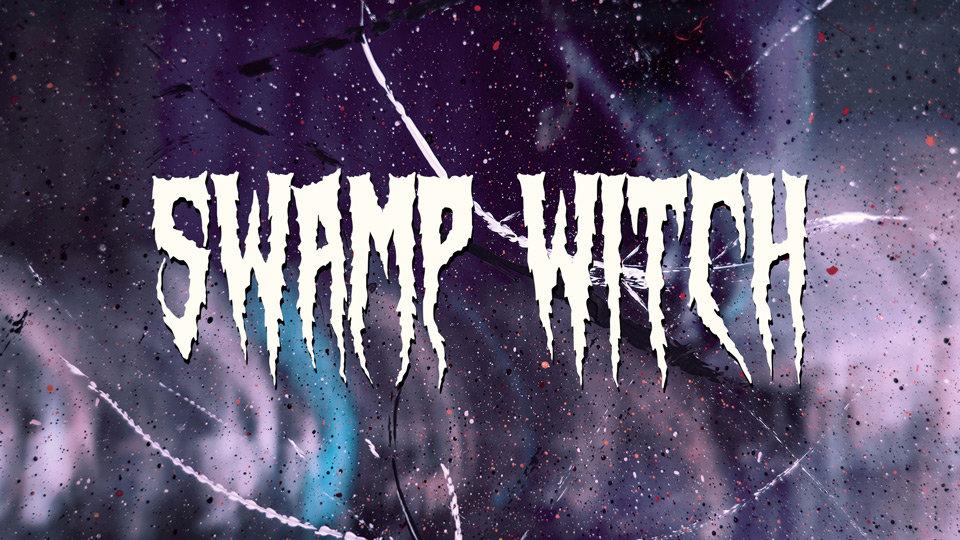
Download Swamp Witch font, a hand crafted typeface that plunges you into the depths of fear with its rough, and gritty appearance. Swamp Witch font is ideal for designs that demand to instill terror and a sense of raw, unrelenting horror.
Designer: Sinister Fonts